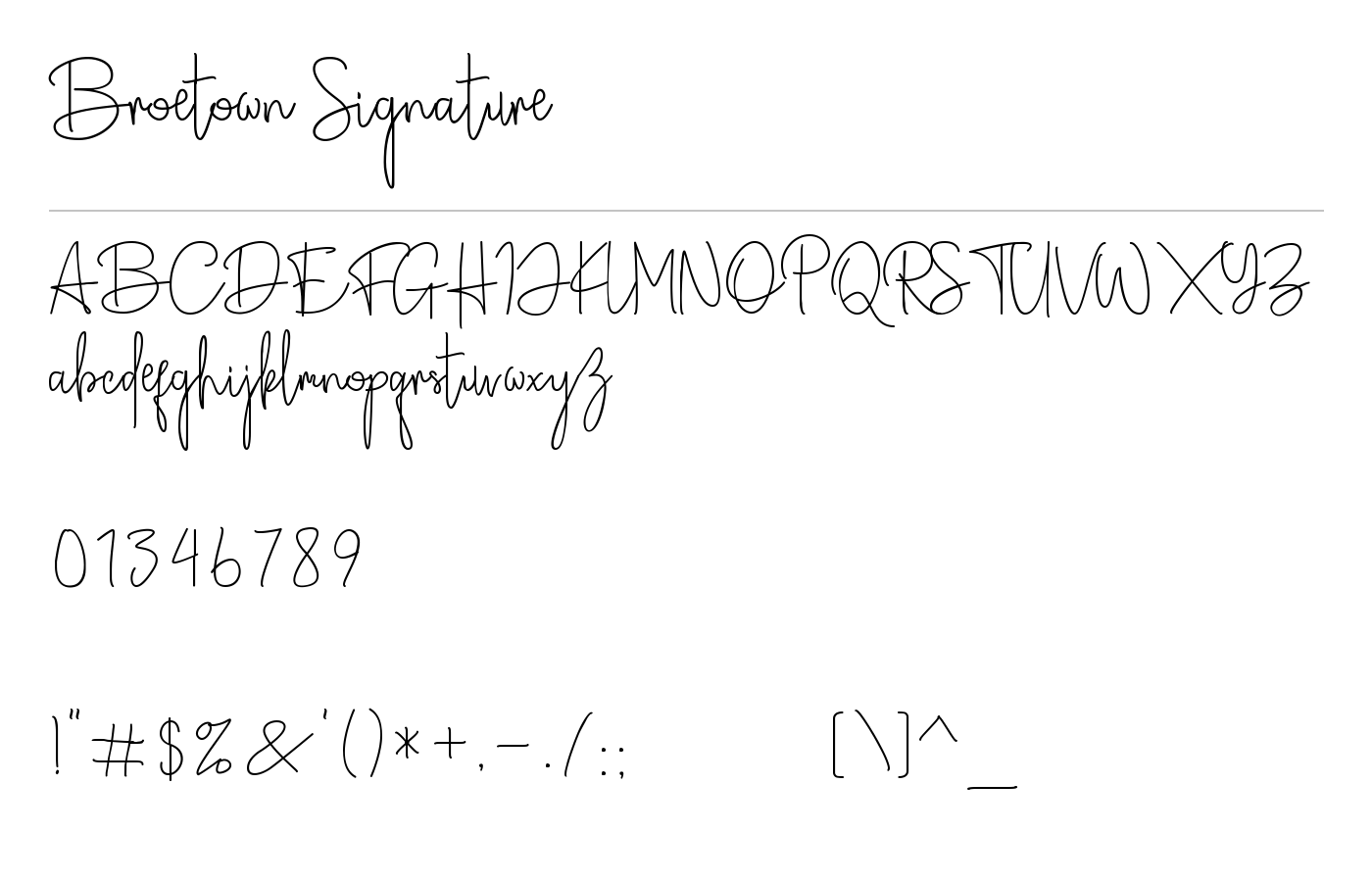
Broetown Signature is a delicate, handwritten script font with a casual and elegant feel, characterized by its thin, flowing strokes and tall, narrow letterforms. Its natural, slightly whimsical style makes it perfect for personal branding, invitations, and creative projects that aim to convey a warm, approachable yet stylish personality. This font shines in contexts where a unique, signature-like touch is desired, adding charm and sophistication without feeling overly formal.
Broetown Signature Font
About Broetown Signature Font
| Font family | Broetown Signature Font |
| Designer | OcansProject33 |